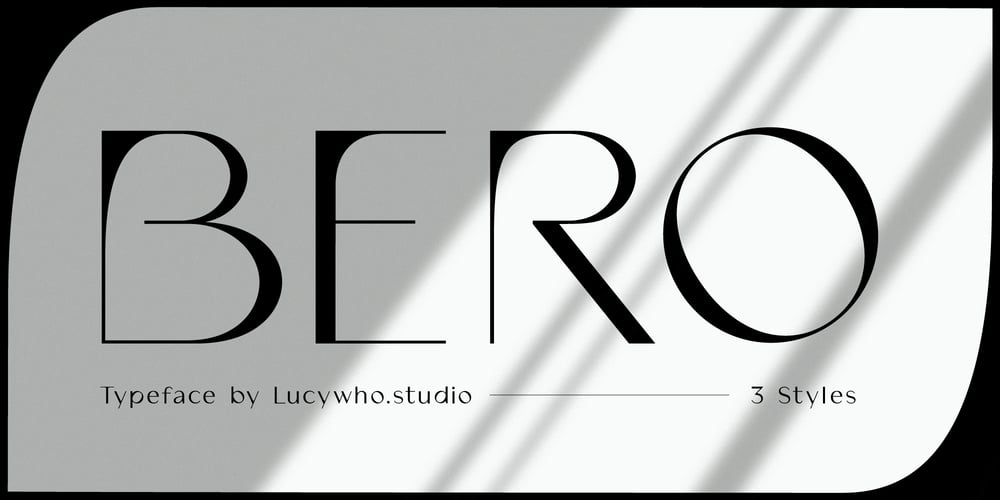
Bero
Bero font
Bero Font Family was designed by Lucia Mercedes and published by Lucywho. Bero contains 3 styles and family package options. BERO – An elegant sans serif fontBERO is clean and modern. This typeface provides a timeless look for any design. Use BERO for branding, magazine design, logo design, headlines, posters, packaging, cards or your wedding invitation. Regular, Bold & Extreme Multilingual support Numerals & Punctuation Recommended to use in Adobe Indesign, Illustrator or Adobe Photoshop.___Follow my shop in order to receive notifications for the latest updates including additional glyphs and more languages. Do not hesitate to message me if you want your language included or if you have any requests regarding features or glyphs. I am happy to assist you.